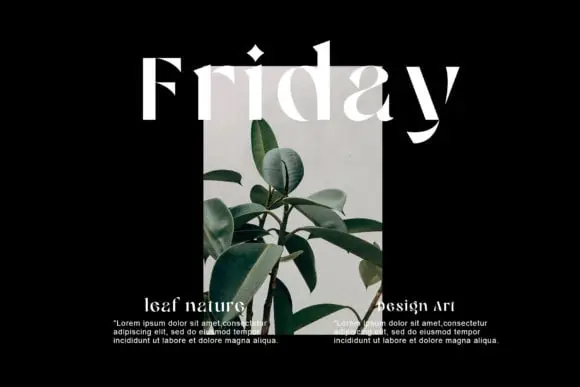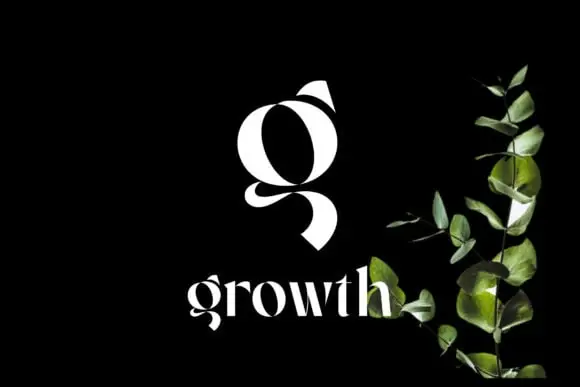
Magisto Font
The Magisto Font is a beautifully crafted typeface designed for modern branding and digital projects. With its unique blend of elegance and readability, this font is perfect for logos, headlines, and any design work that requires a touch of sophistication.
• Multiple weights for versatile design options
• Stylish uppercase and lowercase letters
• Special characters and punctuation included
• Ideal for branding, marketing materials, and web design
• Use in print for business cards, brochures, and posters